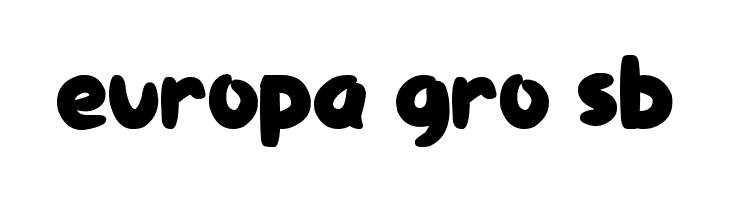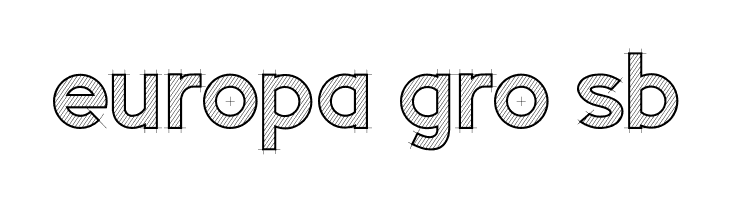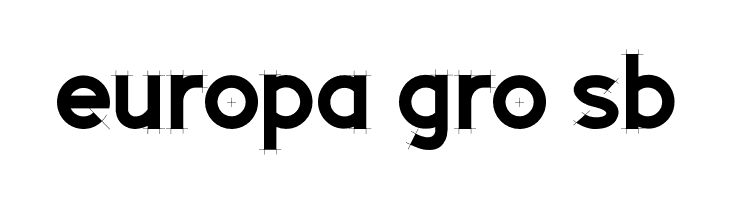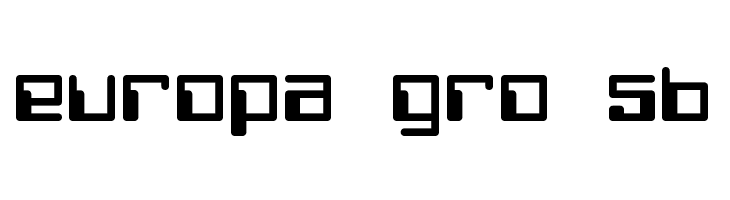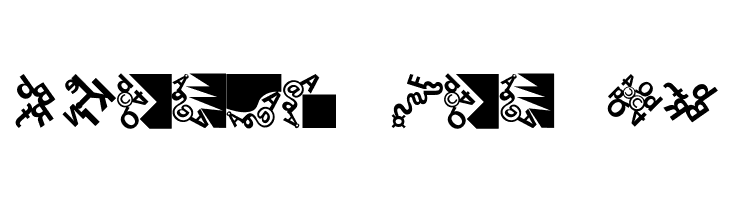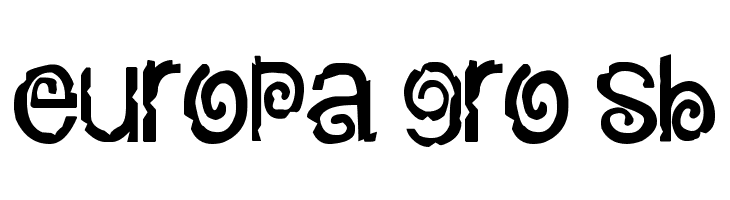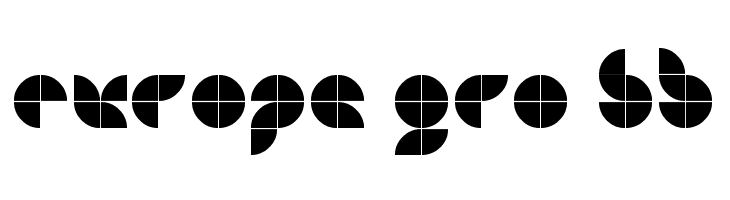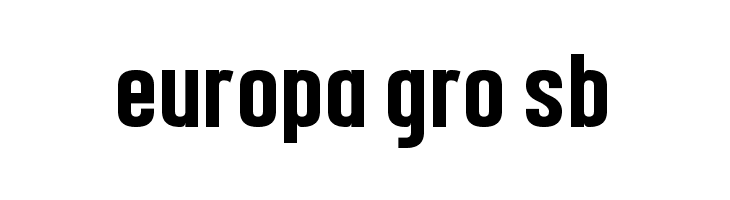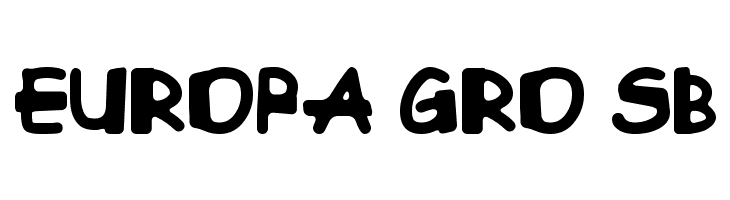
• rastro
( Fonts by Mike Wolf )
A playful, futuristic font with bold, rounded shapes and whimsical accents.
• Raung Rivs
( Sudar Moko )
A bold, high-contrast font with a modern and impactful style.
• Rawles
( Fonts by Balpirick Studio )
A bold, playful font with rounded edges and a hand-drawn feel.
• Rawless
A dynamic, brush-style handwritten font with expressive strokes.
• Raya Feast Demo
A fluid and elegant handwritten script with smooth, connected strokes.
• Razed Bold
( Here Be Monsters - monsterswithin.com )
• Razed Galerie
( Here Be Monsters - monsterswithin.com )
A bold, geometric font with dynamic cut-out patterns and a modern aesthetic.
• Razed Light
( Here Be Monsters - monsterswithin.com )
A futuristic, geometric font with sharp angles and clean lines.
• Razorclaw
A bold, angular font with high contrast and geometric style.
• Razorclaw Bold
A bold, angular font with a modern gothic style.
• Razorclaw Bold Italic
A bold, italicized font with sharp, angular edges and a dynamic appearance.
• ReactivoFree
A playful, bold handwritten font with rounded, whimsical characters.
• Rebond Light
A geometric, minimalist font with thin lines and sharp angles.
• Recons
A bold, angular font with a futuristic and decorative style.
• Reconstruct Condensed
• Reconstruct Condensed Italic
• Reconstruct Italic
• Redcap Bloodthirsty
• Reds Aglonema
A playful, handwritten font with bold, rounded characters.